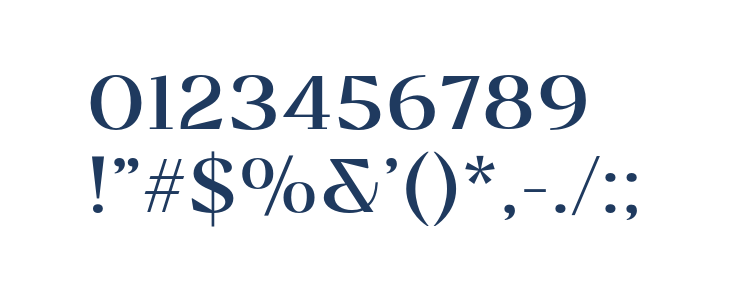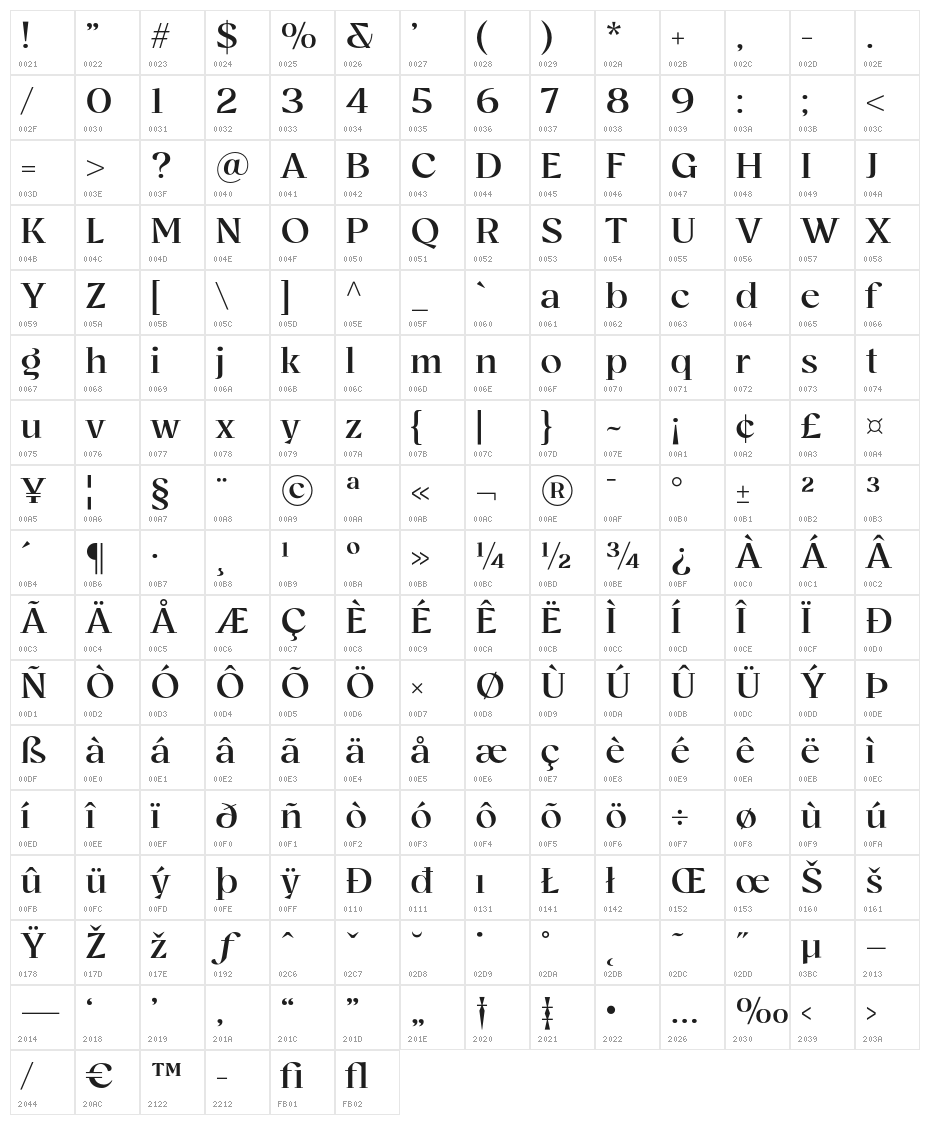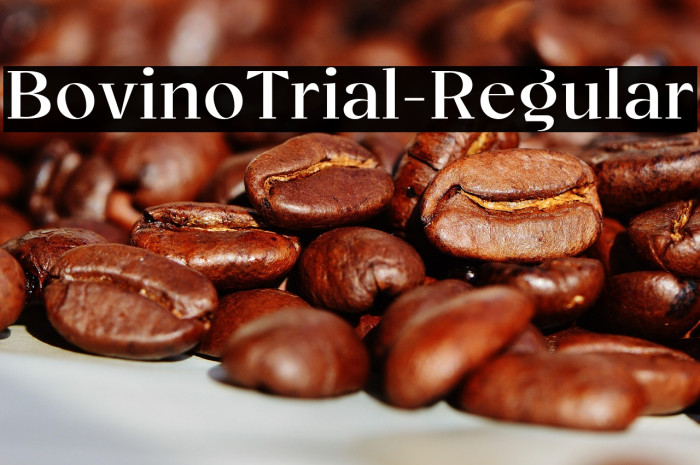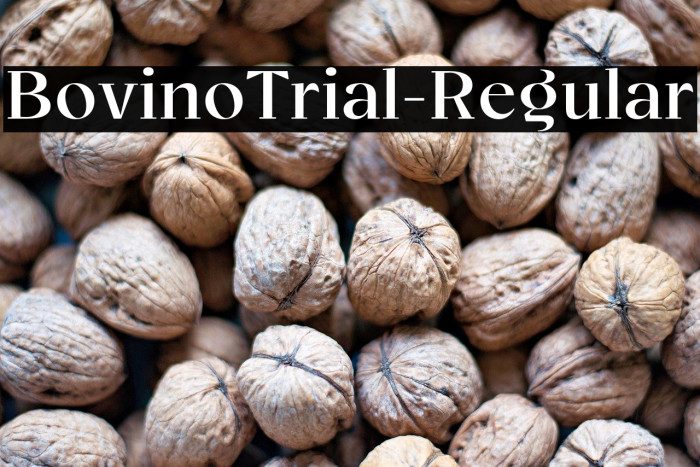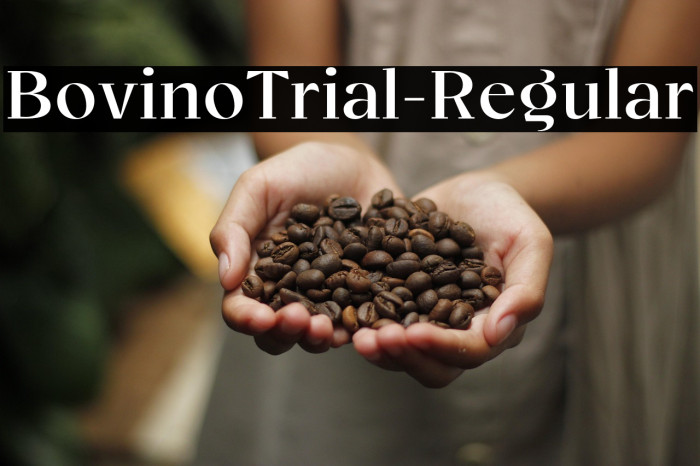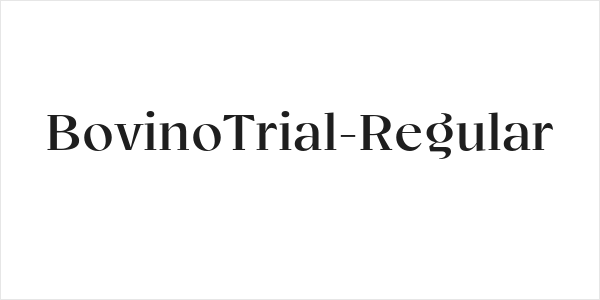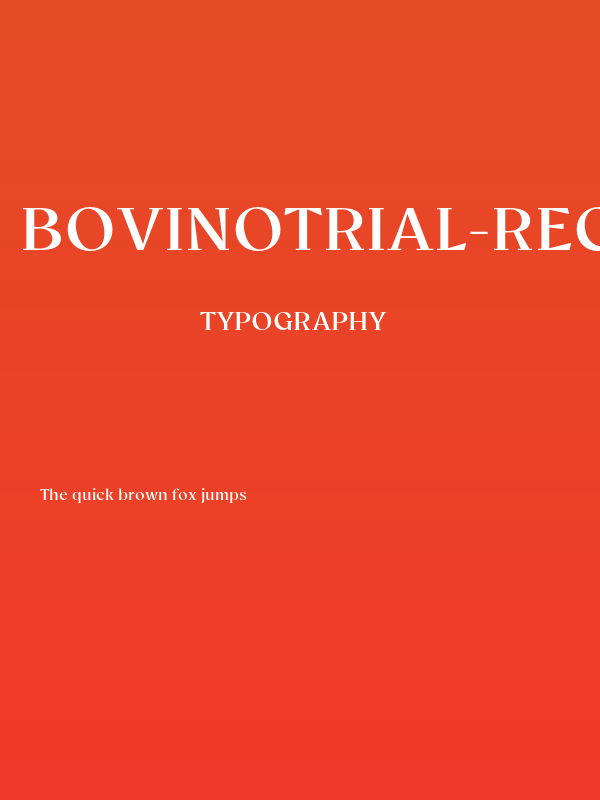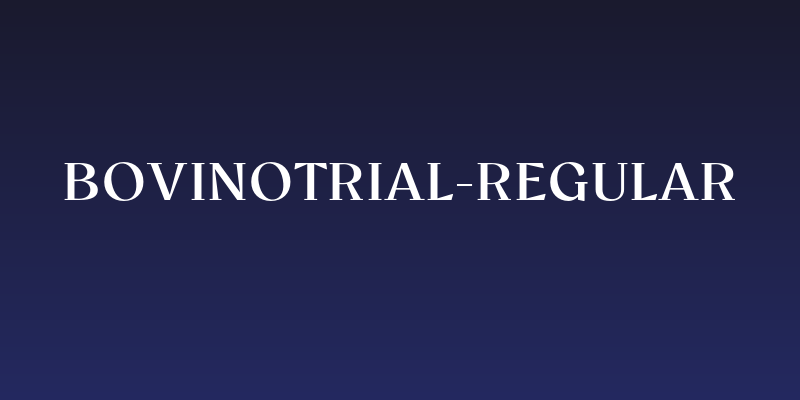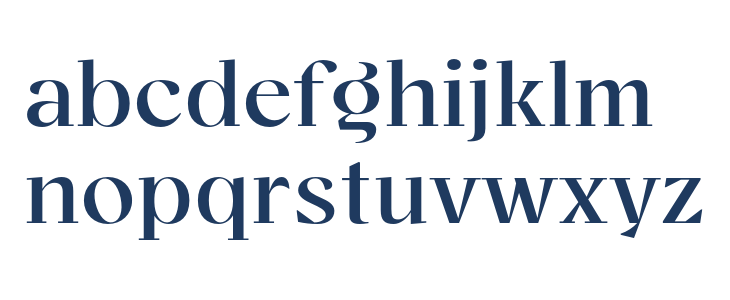
BovinoTrial-Regular Font
BovinoTrial-Regular Description
This font features a classic serif style with a modern twist, characterized by its elegant and refined letterforms. The uppercase letters exhibit a strong presence with sharp serifs and balanced proportions, while the lowercase letters maintain a harmonious flow with subtle curves. The numerals are clear and distinct, ensuring readability. Special characters are well-integrated, adding versatility to the font. The overall design is sophisticated, making it suitable for a variety of professional and creative applications.
| Proposed Projects | Ideal for editorial design, branding, book covers, and formal invitations. |